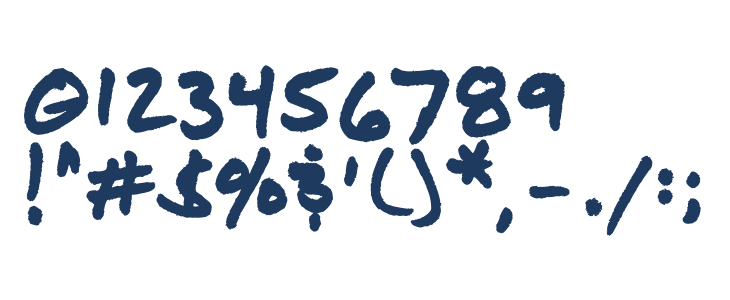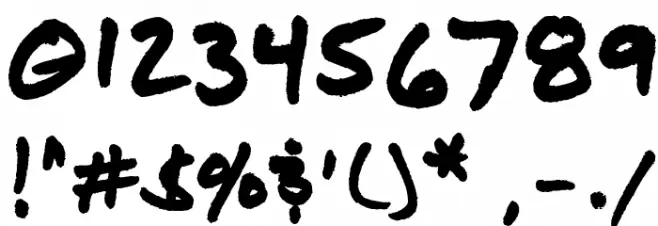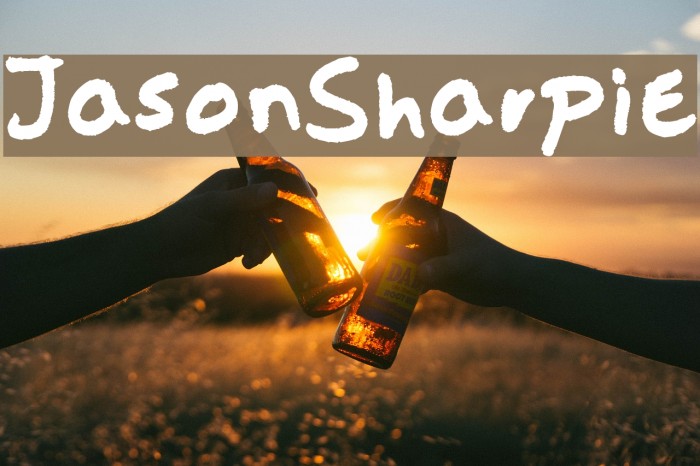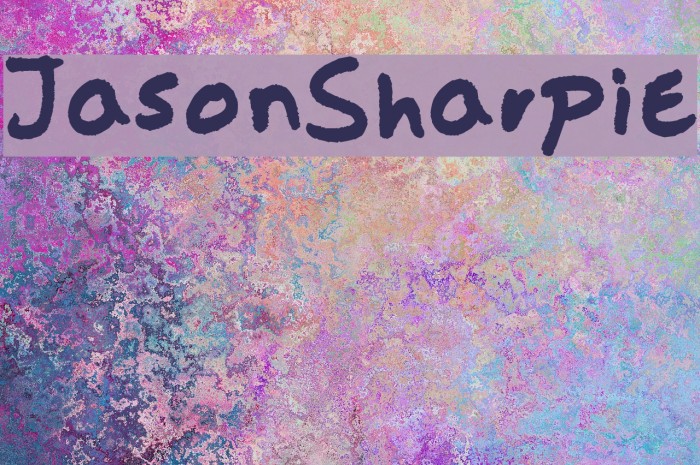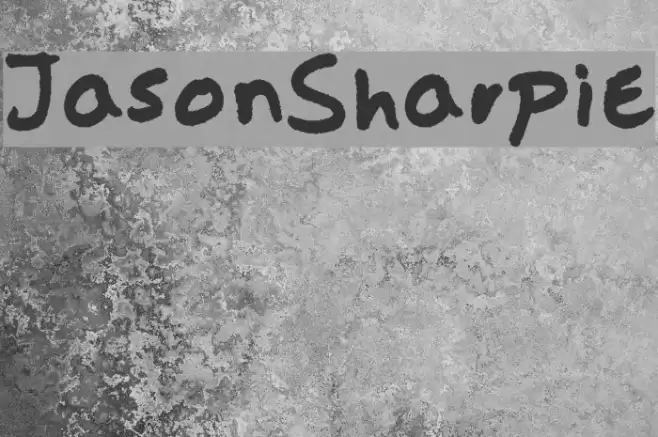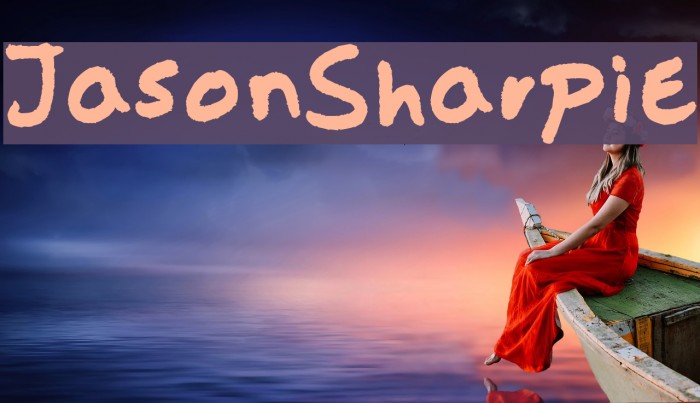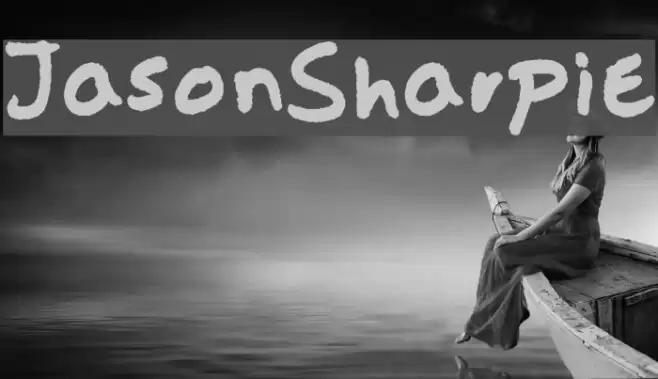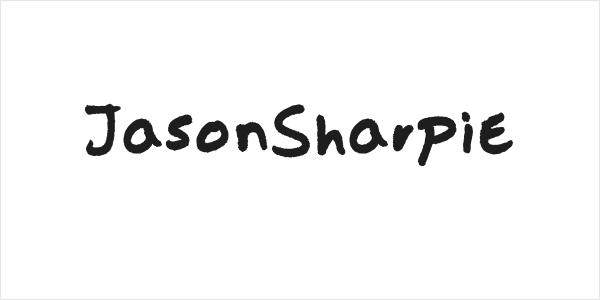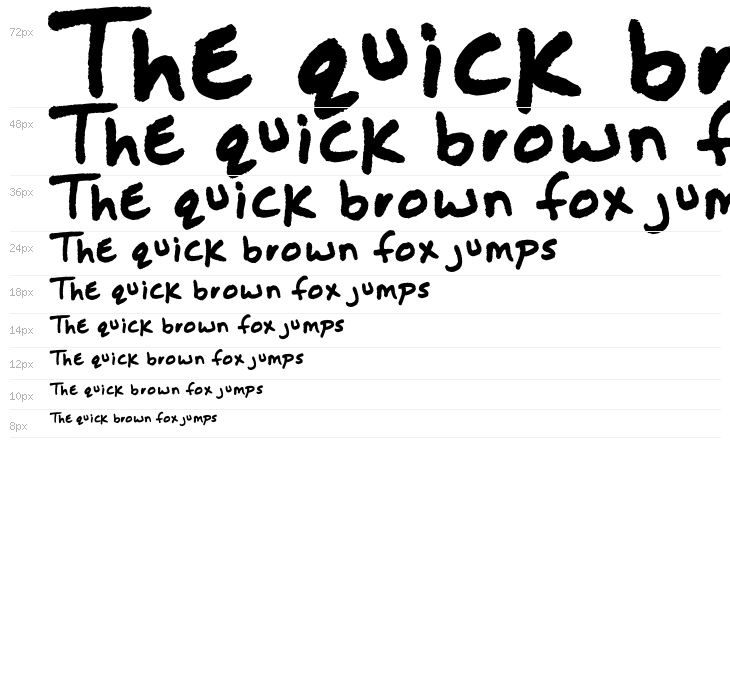
JasonSharpie Font
JasonSharpie Description
This font exudes a casual, handwritten style reminiscent of a bold marker or sharpie. The characters are thick and slightly irregular, giving them a personal and informal appearance. The uppercase and lowercase letters maintain a consistent flow, with rounded edges and a playful demeanor. Numbers and special characters follow the same style, ensuring uniformity across all elements. The font's bold strokes and organic feel make it stand out, ideal for projects that require a touch of personality and approachability.